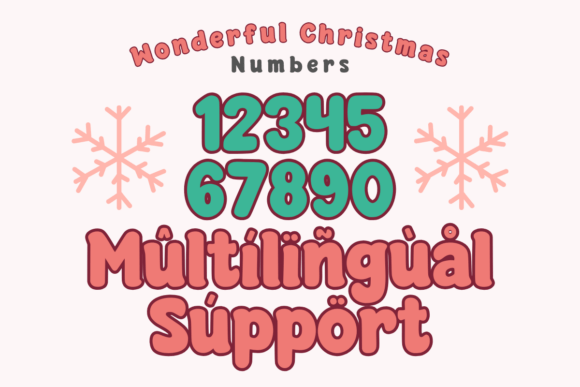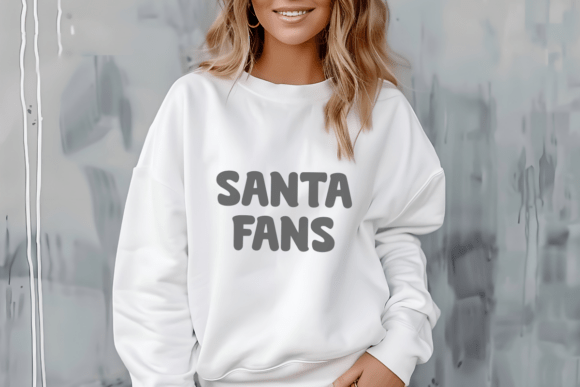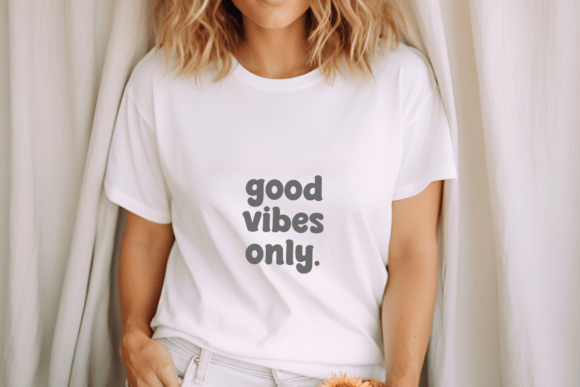
Wonderful Christmas Font
Wonderful Christmas is a fancy retro Christmas font that brings a fun, nostalgic vibe to your creative projects. Its thick strokes and playful curves make it perfect for adding a vintage flair to any design.